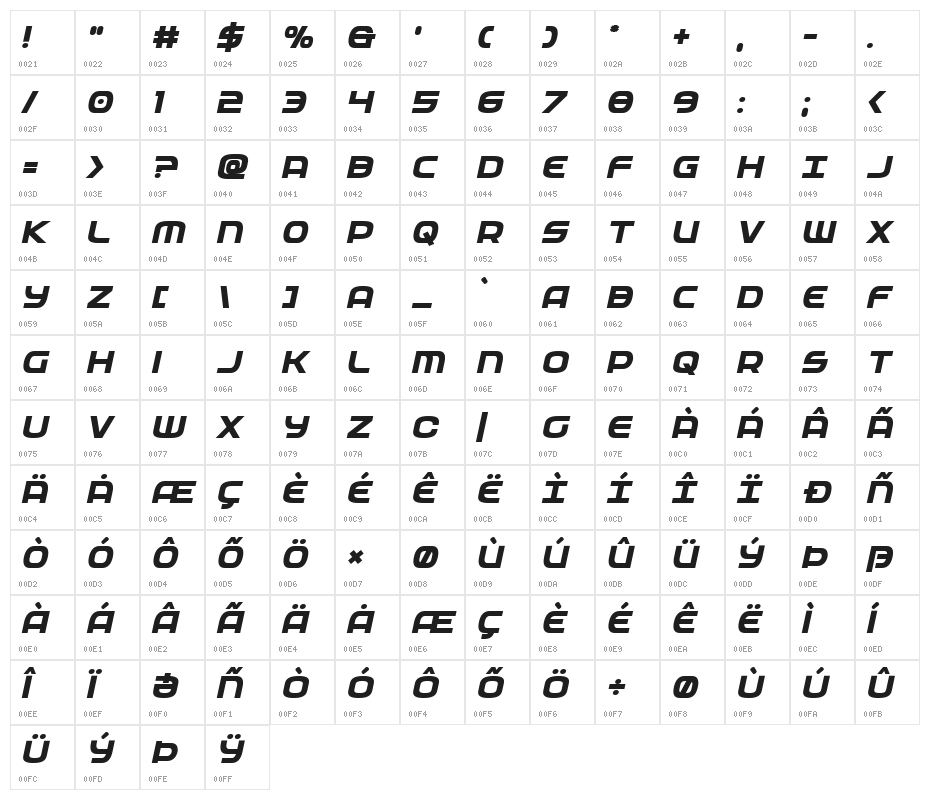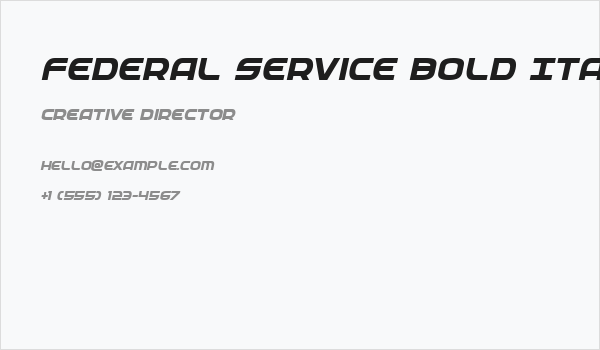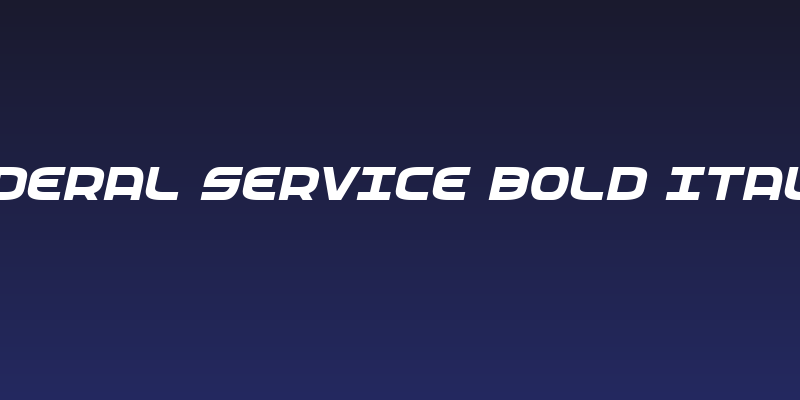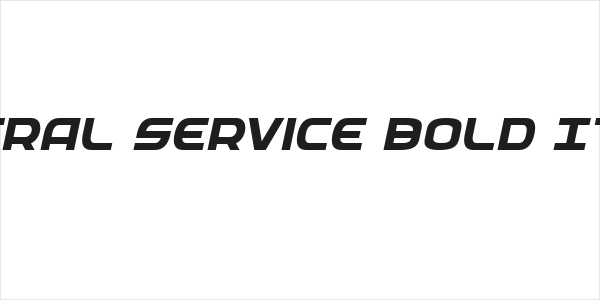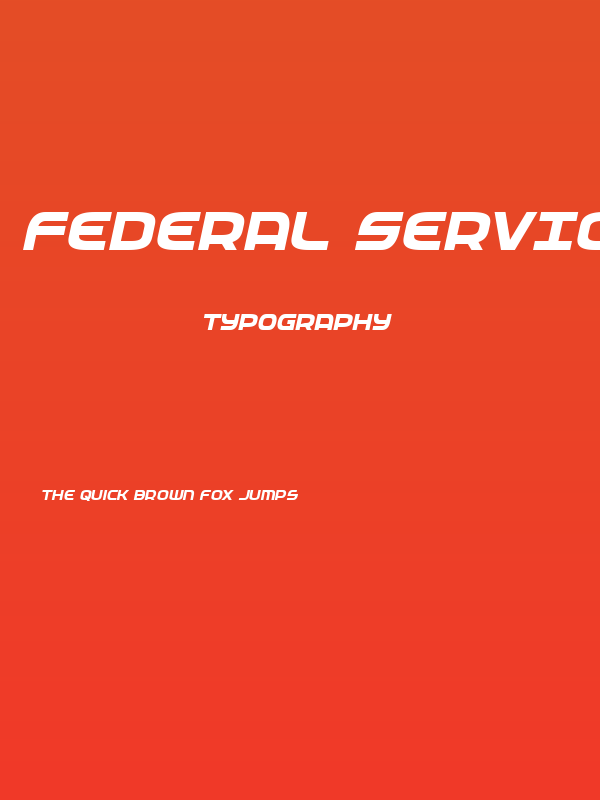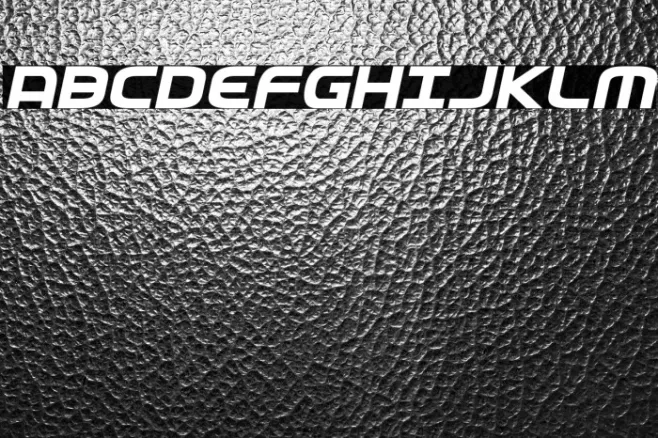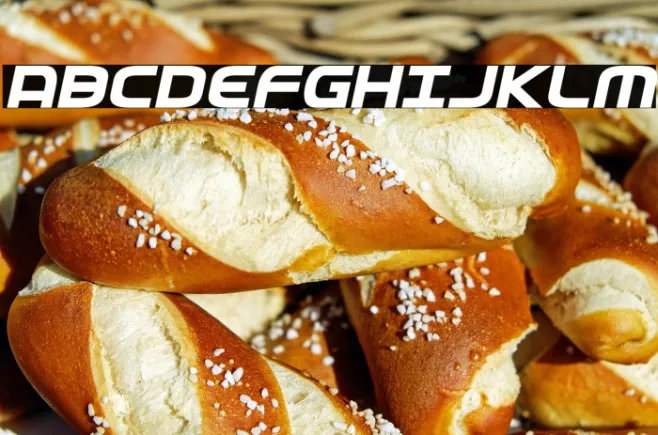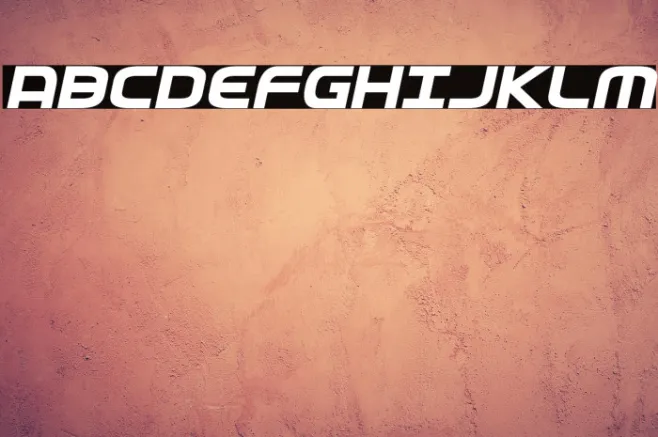
Federal Service Bold Italic Font
Federal Service Bold Italic Description
This typeface features a bold and italicized style, characterized by its strong and dynamic appearance. The letters are slightly slanted, adding a sense of motion and energy. The strokes are thick and consistent, providing a robust and impactful look. The design is modern and sleek, with a geometric influence that gives it a futuristic feel. The characters are well-spaced, ensuring readability while maintaining a compact form. This font is ideal for making a statement, with its bold presence and unique style.
| Proposed Projects | Ideal for branding, headlines, posters, and any project requiring a strong, modern aesthetic. |